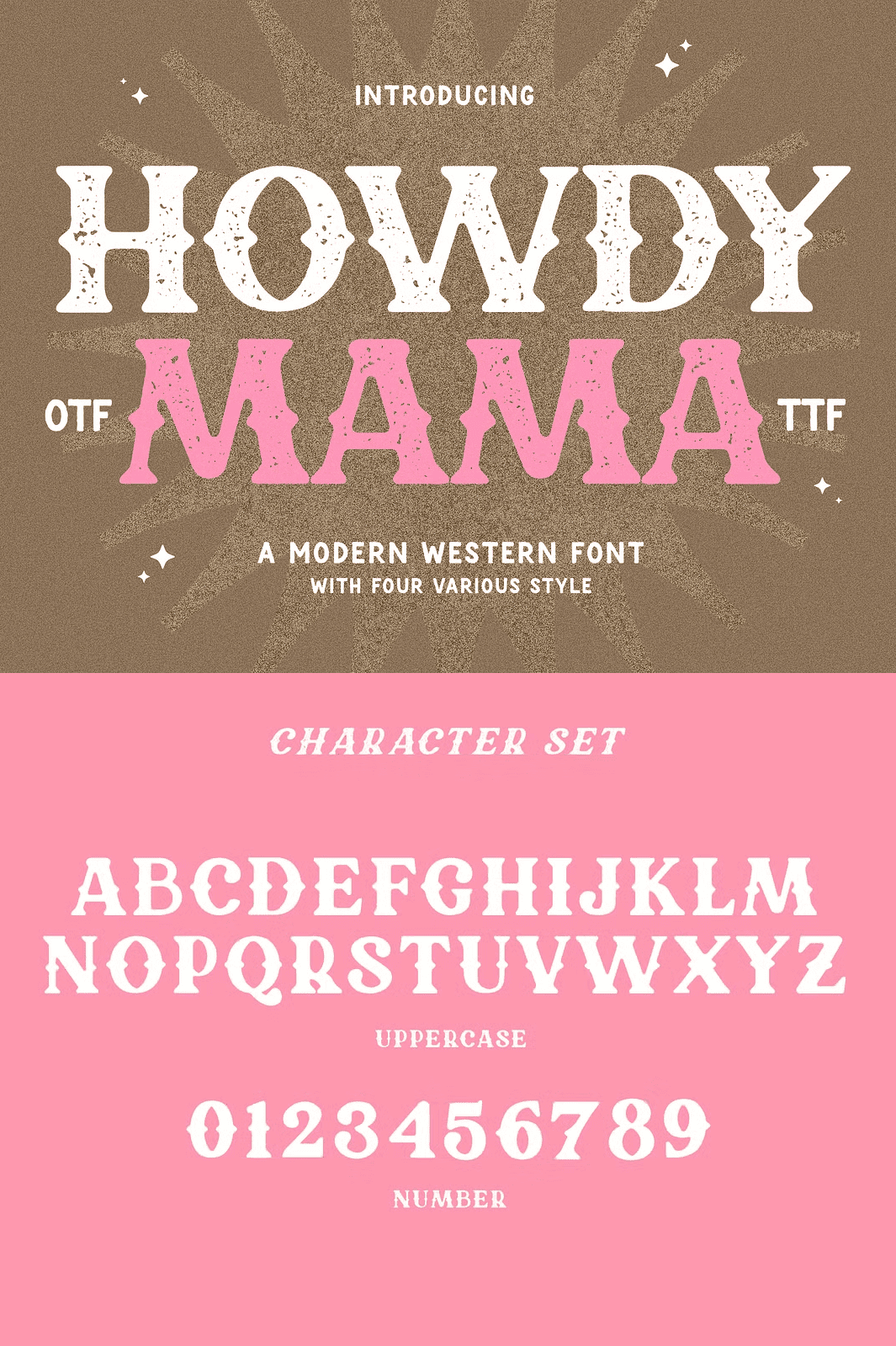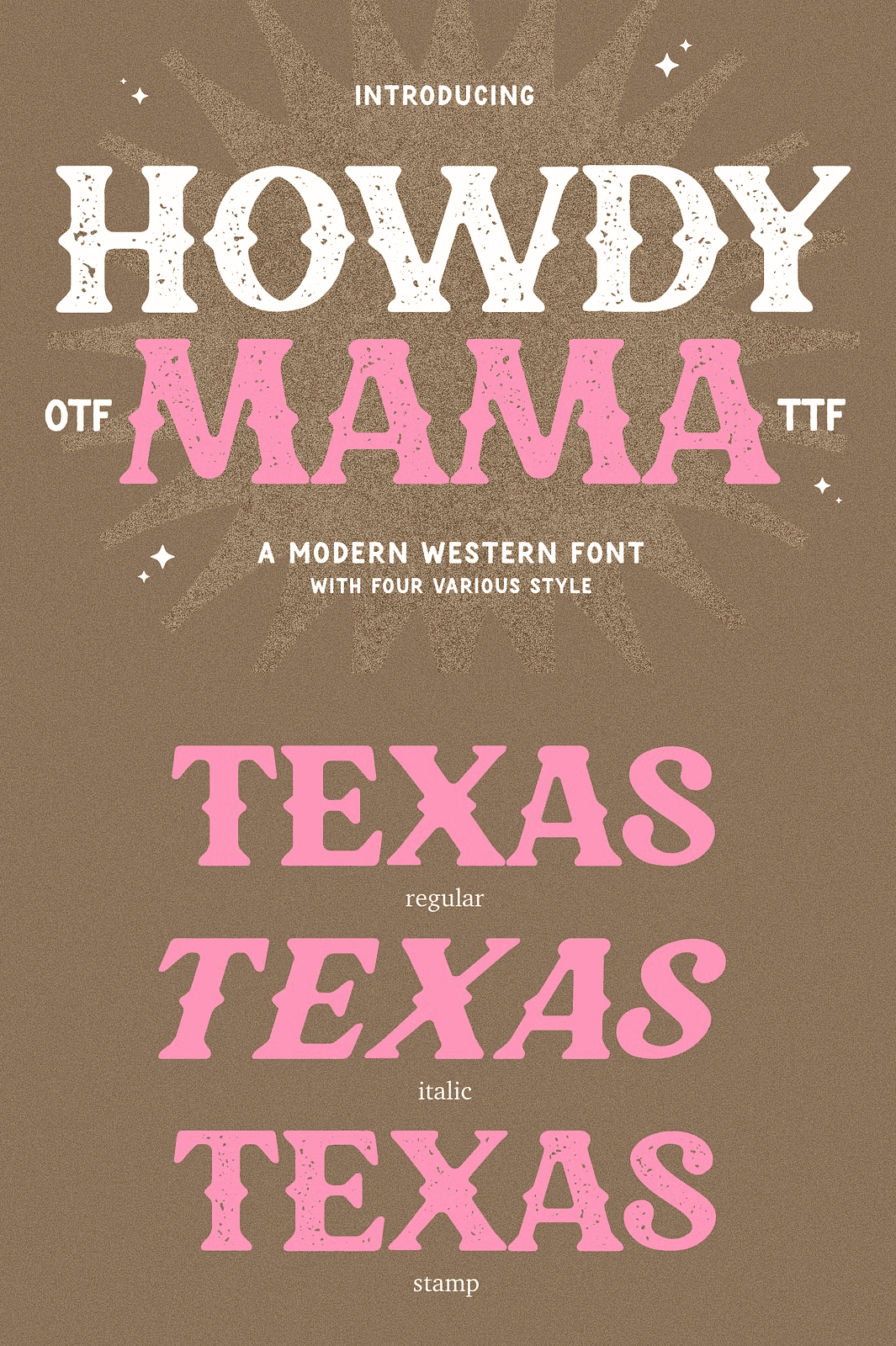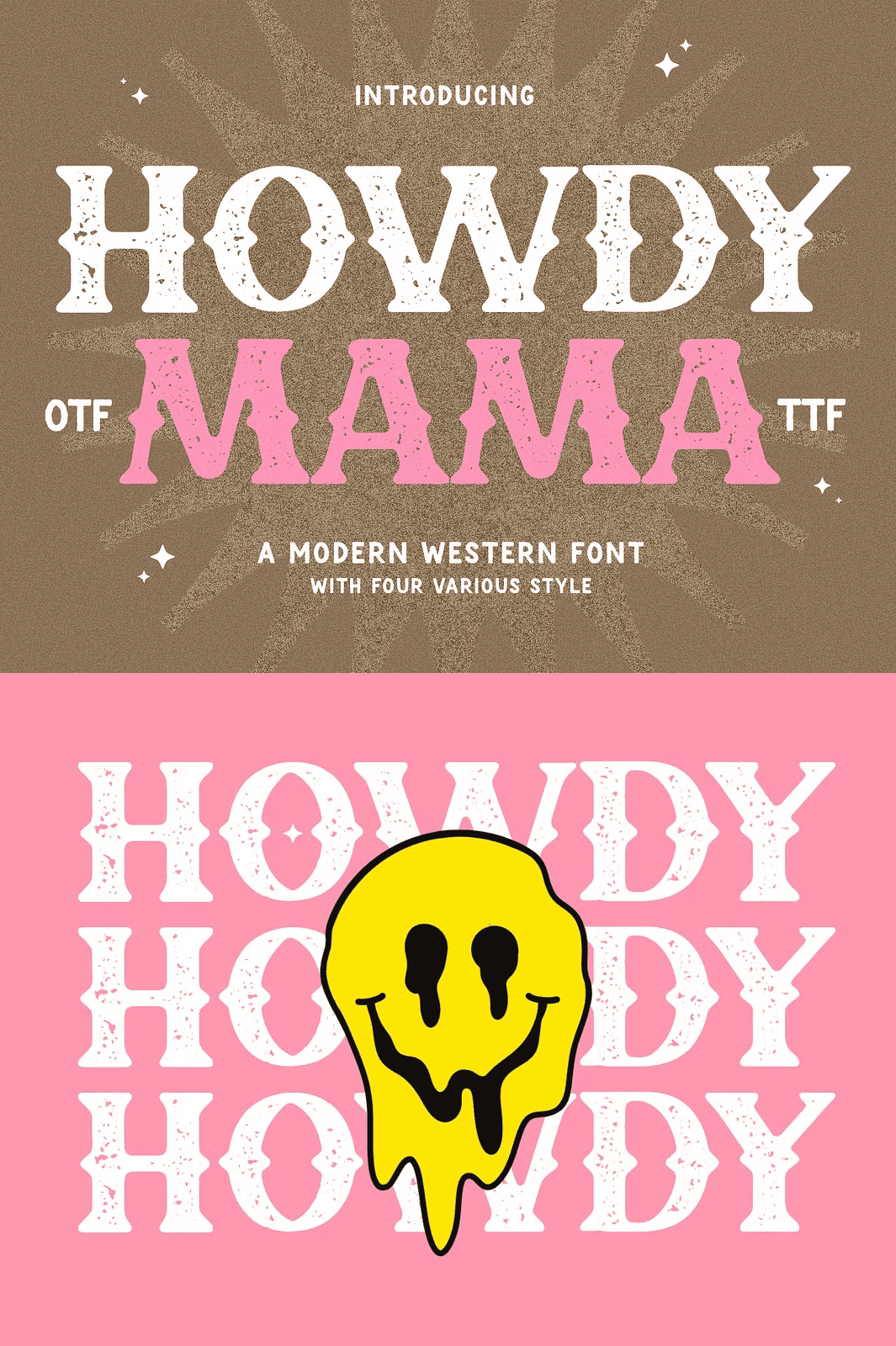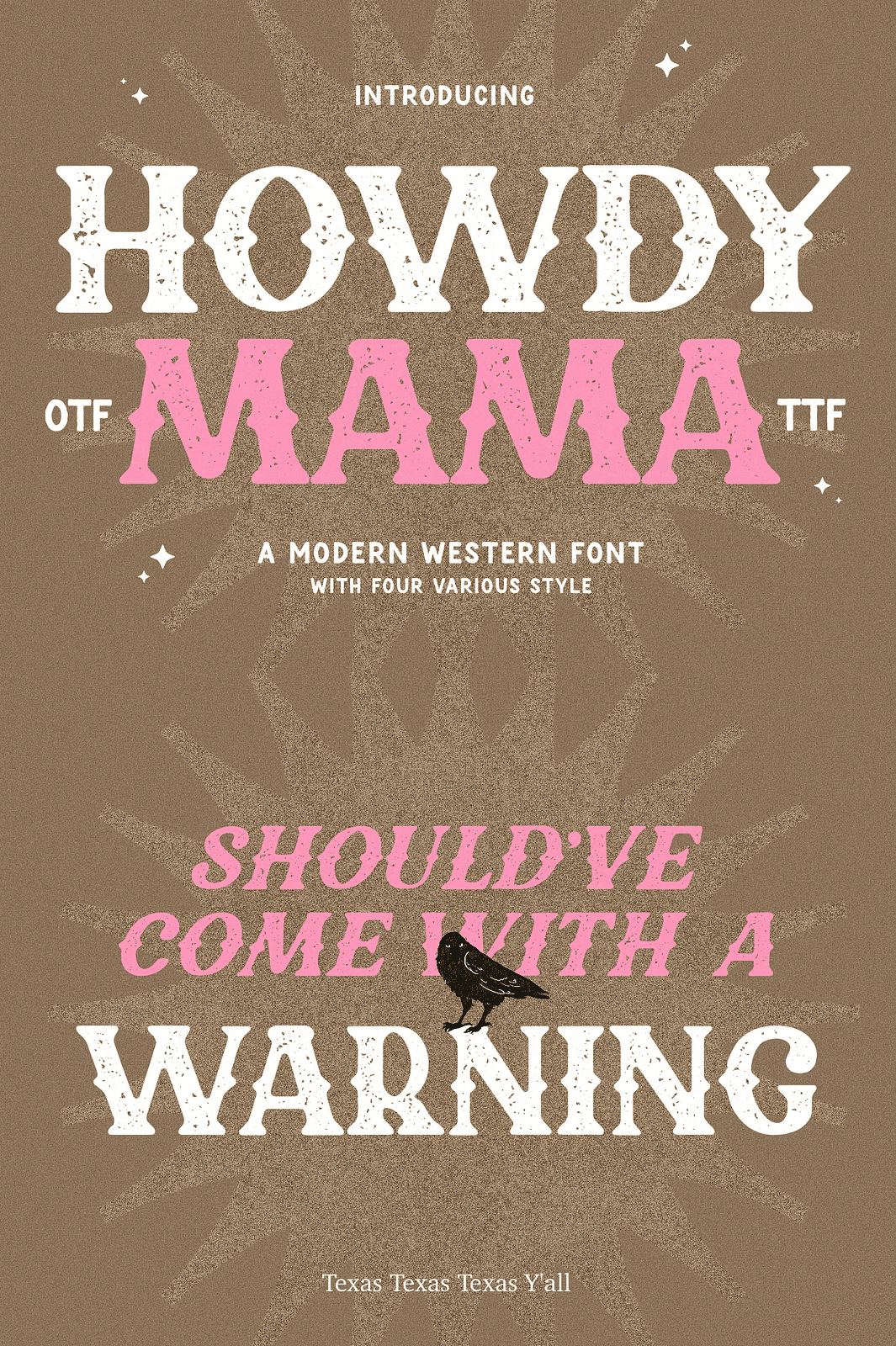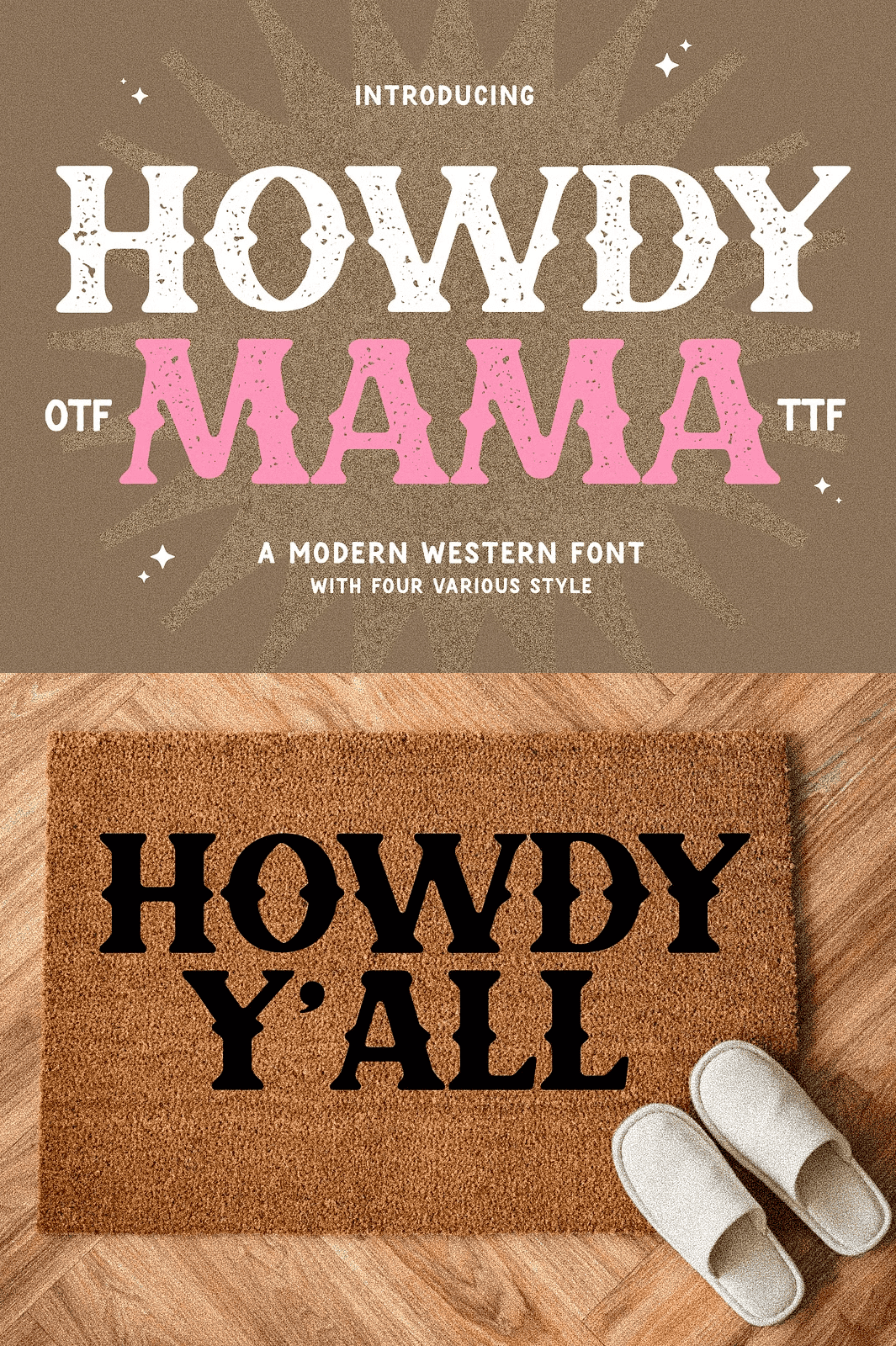
Howdy Mama – Western Font, Bold Font
Command Attention with a Font That Screams “Cowboy Spirit”
Step into the dusty trails and sunbaked plains of the American West with Howdy Mama — a fiercely bold, hand-crafted serif typeface that captures the raw essence of vintage signage, old-west posters, and authentic stamp lettering from the frontier era.
Every stroke is deliberate, every letter thick and imposing, with a stamped, embossed look that gives your design a tactile, tactile realism. This isn’t just typography — it’s storytelling. With every use, you’re summoning the spirit of rodeo clowns, saloon signs, and leather-bound ledgers from a bygone age.
Whether you’re branding a Western-themed café, launching a boot & saddle collection, or designing festival graphics, Howdy Mama commands the spotlight. It’s the font that doesn’t whisper — it roars with personality, authenticity, and unapologetic attitude.
Transform Your Designs with Raw, Retro Power
Howdy Mama isn’t for the faint of heart — it’s built for creators who want visual impact, emotional resonance, and vintage authenticity. Let it breathe life into your most daring concepts:
• Create Unforgettable Logos & Brand Identities — Build a brand that stands out in the wild west of modern design. Whether it’s for a craft brewery, bootmaker, or adventure tour company, this font says “authentic” before a single word is read.
• Design Headlines & Posters That Pop — Turn any event announcement, concert flyer, or festival promo into a scene from an old Western film.
• Enhance Merchandise & Apparel — Print on shirts, hats, mugs, and tote bags with a design that feels hand-stamped, hand-crafted, and truly unique.
Don’t wait for inspiration — create it. Howdy Mama is your ticket to bold, rustic, unforgettable design. Whether you’re a small business owner, a designer, or a crafter who loves the West, this font is your new go-to tool for standout visual identity.